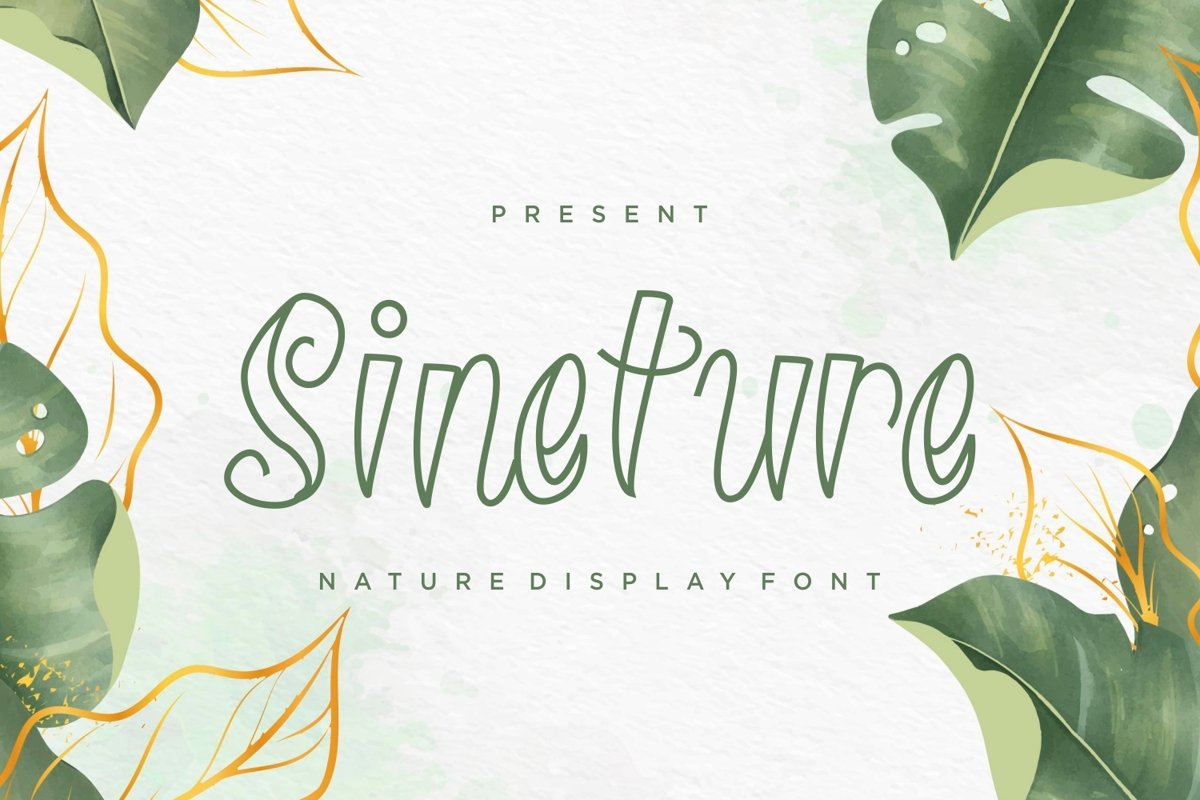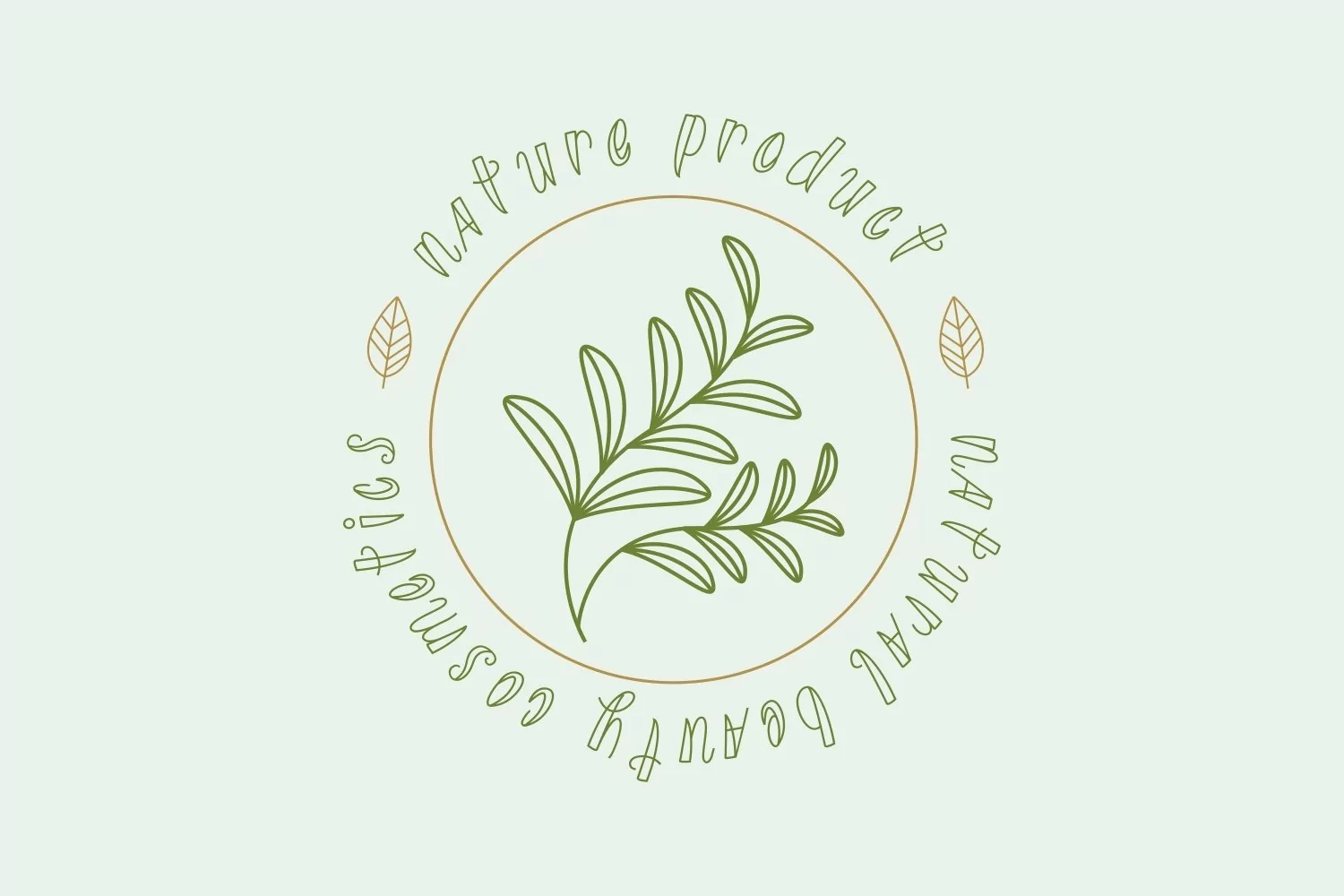
Sineture is a stylish typeface come with nature themes. It matches applies in some designs such as the logotype, brand, packaging, quotes, poster, shirt, book, wedding invitation and more custom design. The features uppercase, lowercase, numeral, punctuation & symbol, multilingual support, PUA encoded (fully accessible without additional design software).
Sineture